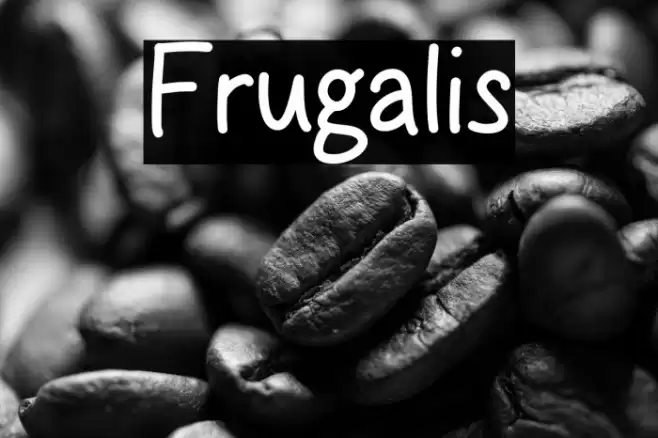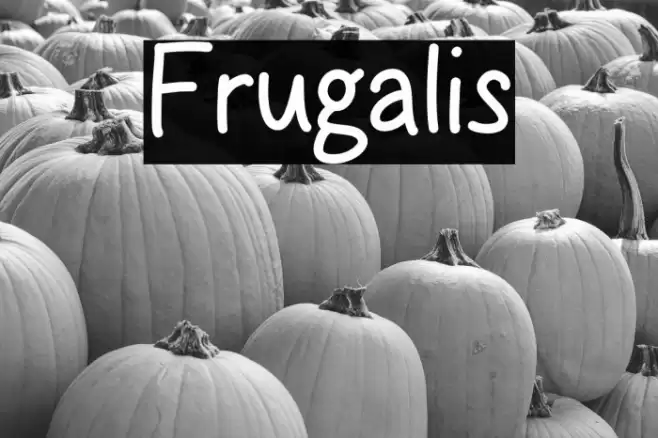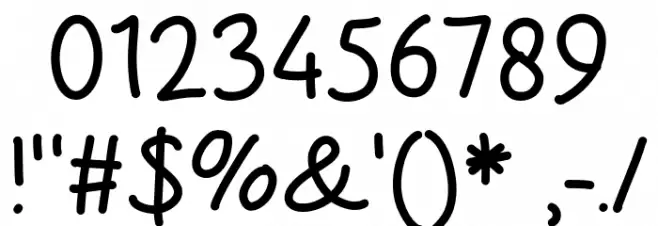
Frugalis Font
Frugalis Description
This font features a playful and informal style with rounded edges and a hand-drawn appearance. The characters are slightly irregular, giving it a casual and friendly feel. The uppercase and lowercase letters maintain a consistent style, with a slight tilt that adds to the whimsical nature. The numerals and special characters follow the same design principles, ensuring a cohesive look across all elements. The font's overall appearance is approachable and versatile, making it suitable for a variety of creative projects.
A playful, hand-drawn font with rounded edges and a casual style from Uncategorized fonts.
- Proposed Projects: Ideal for children's books, greeting cards, casual branding, and playful social media graphics.
- Overall Style: Casual
- Use Case: Headlines, Logos, Informal Text